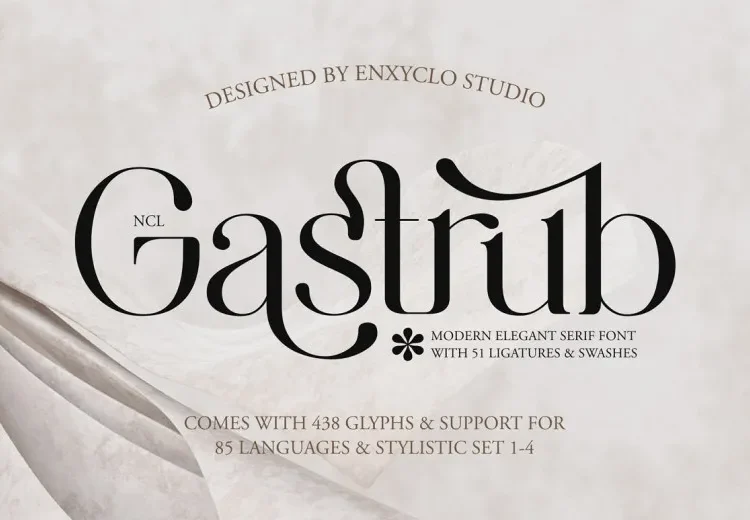
NCL Gastrub Font
NCL Gastrub is an elegant serif typeface featuring swashes and ligatures, designed to shine at large point sizes while maintaining its grace when scaled down. Its refined craftsmanship makes it a versatile and cherished addition to your font collection, capable of elevating a wide array of creative projects.
This stunning font is ideal for weddings, magazine headlines, billboard titles, website posters, branding, and logo designs. Whether used for grand displays or intricate details, NCL Gastrub delivers captivating typography that leaves a lasting impression.
Its combination of elegance and functionality ensures that your designs stand out with sophistication and style. From wedding invites to striking headlines, this typeface adapts seamlessly to any creative concept.